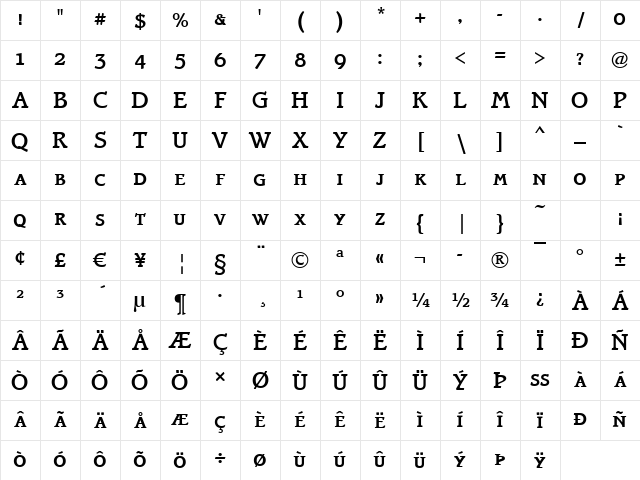
Bravo-Caps-Medium Regular
Design Context for Bravo-Caps-Medium
Bravo-Caps-Medium is a composed and adaptable typeface that performs quietly and consistently across a wide range of design contexts.